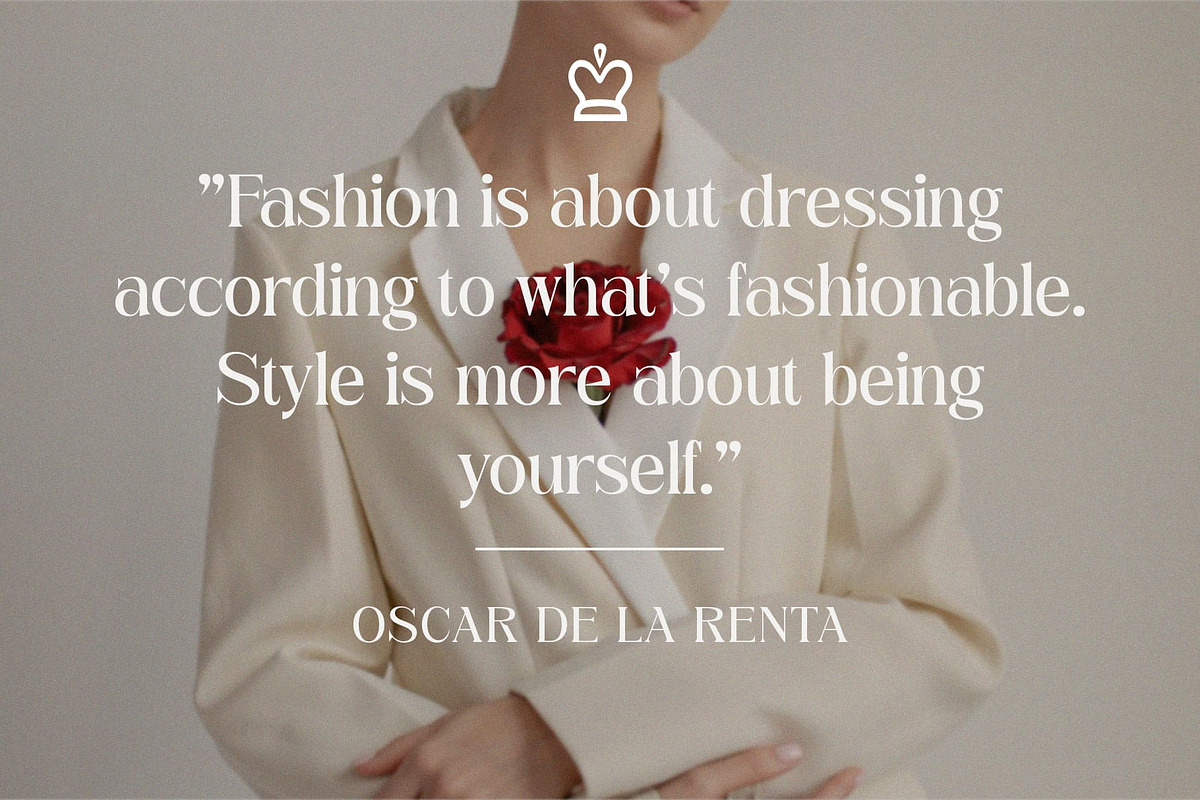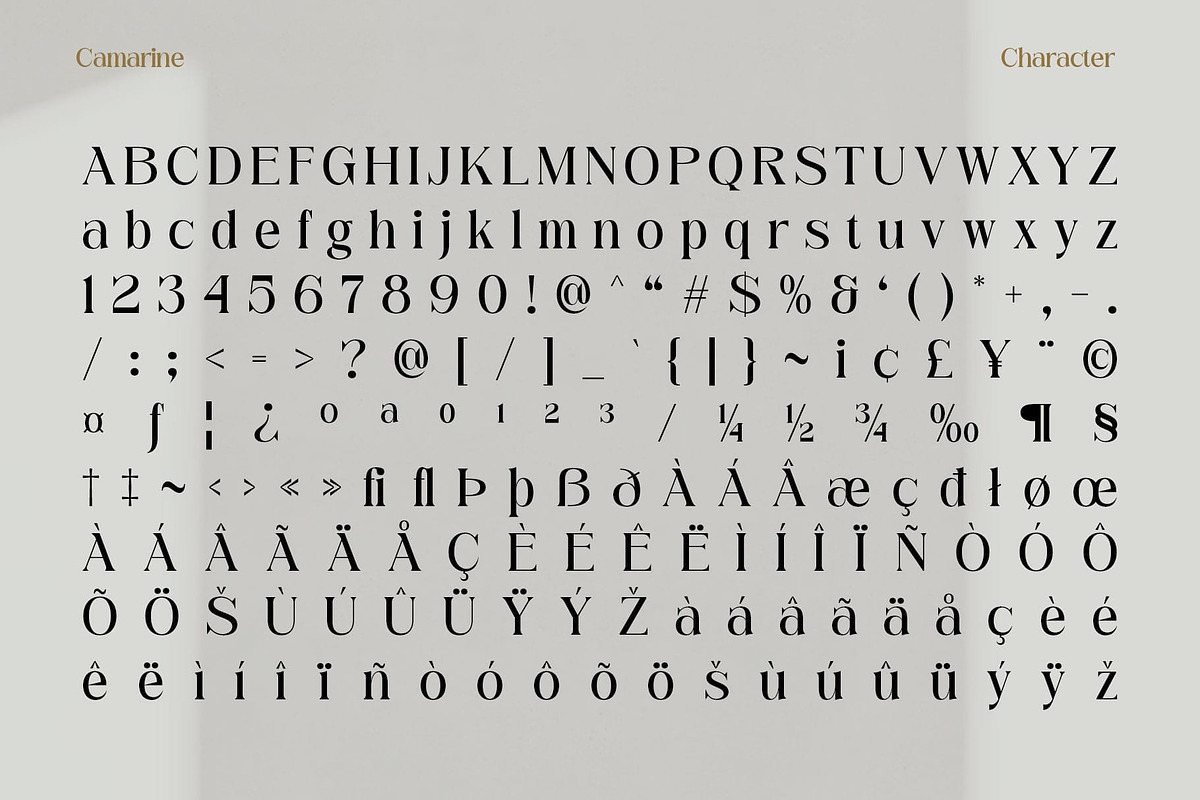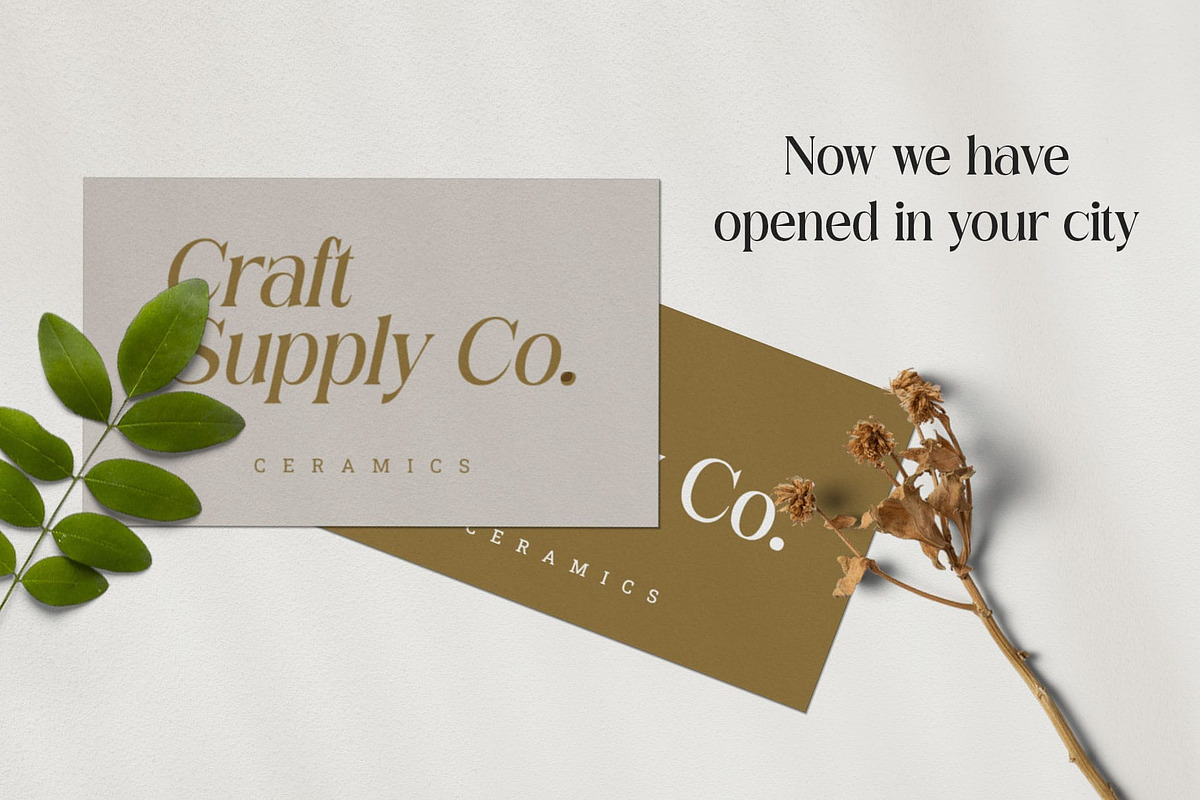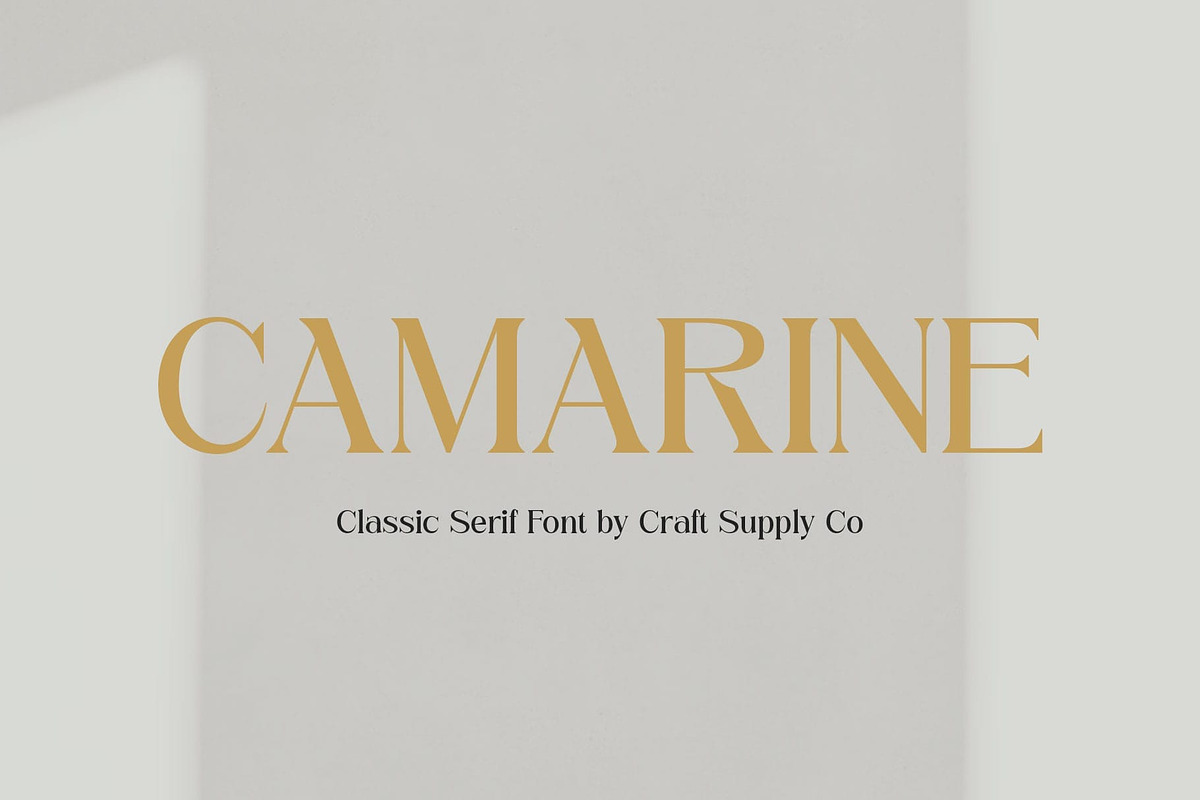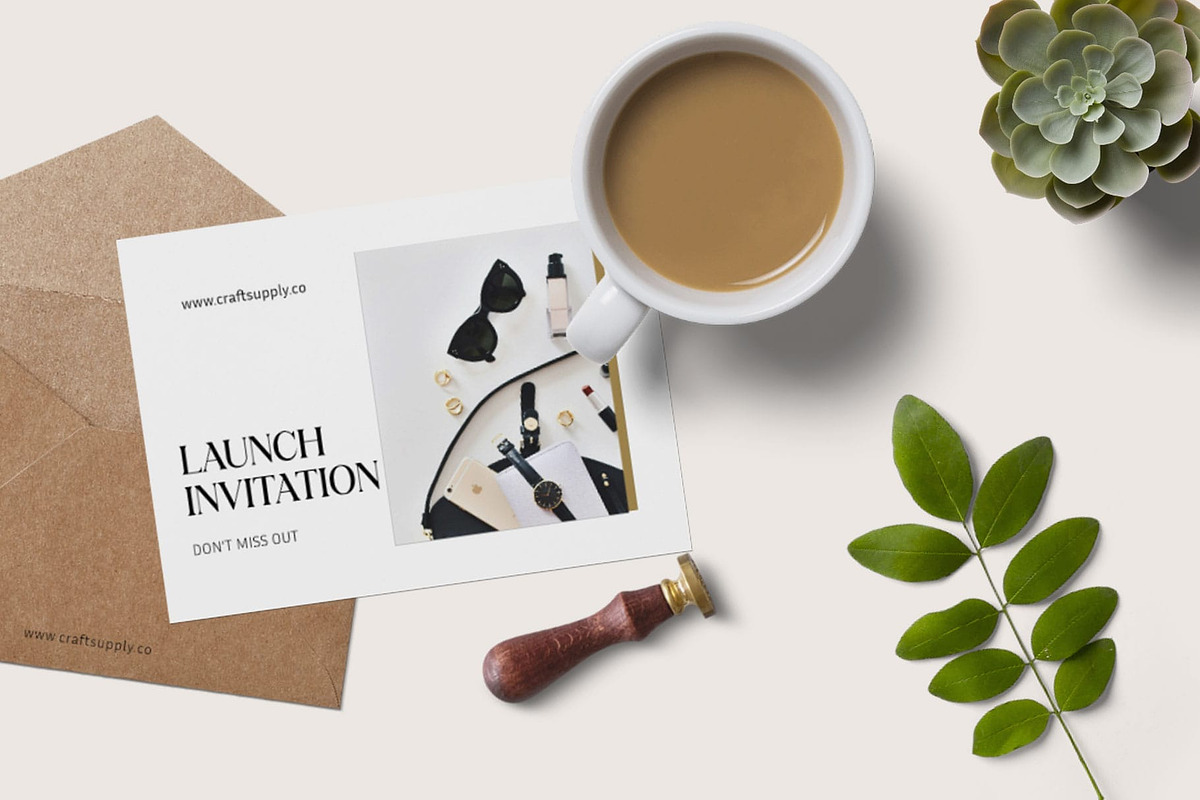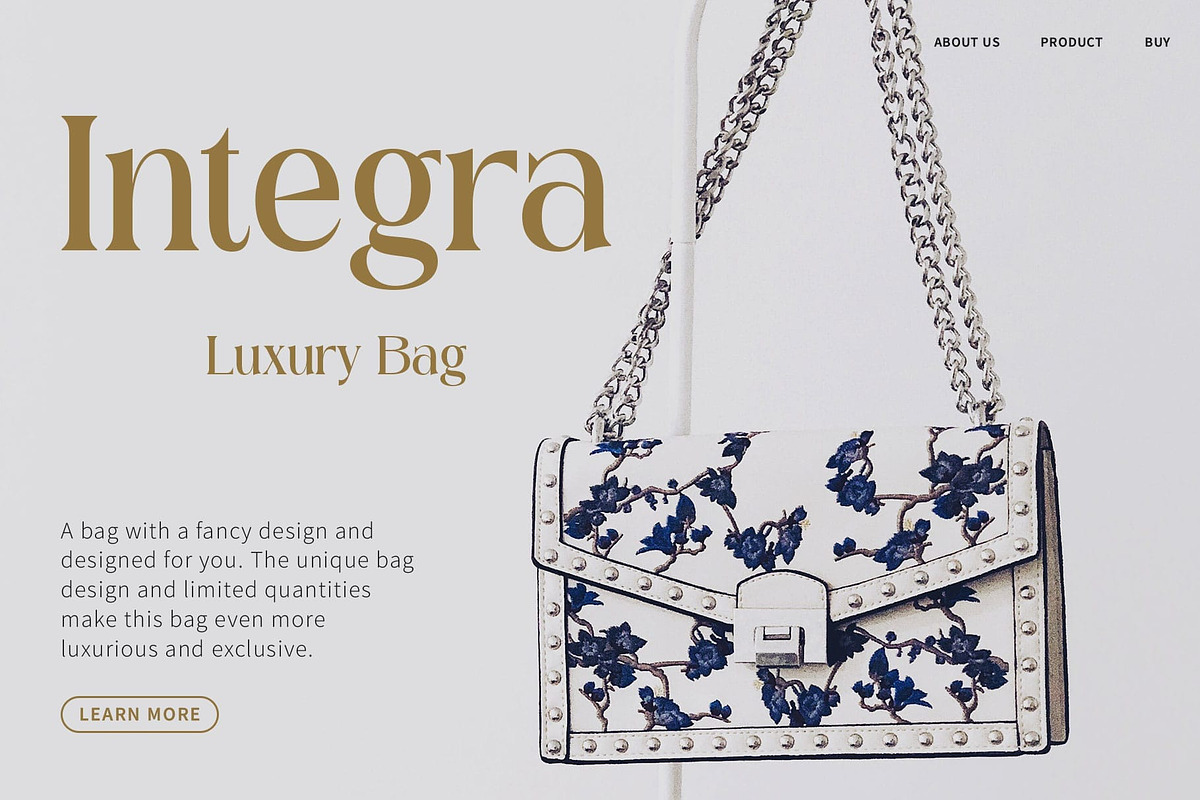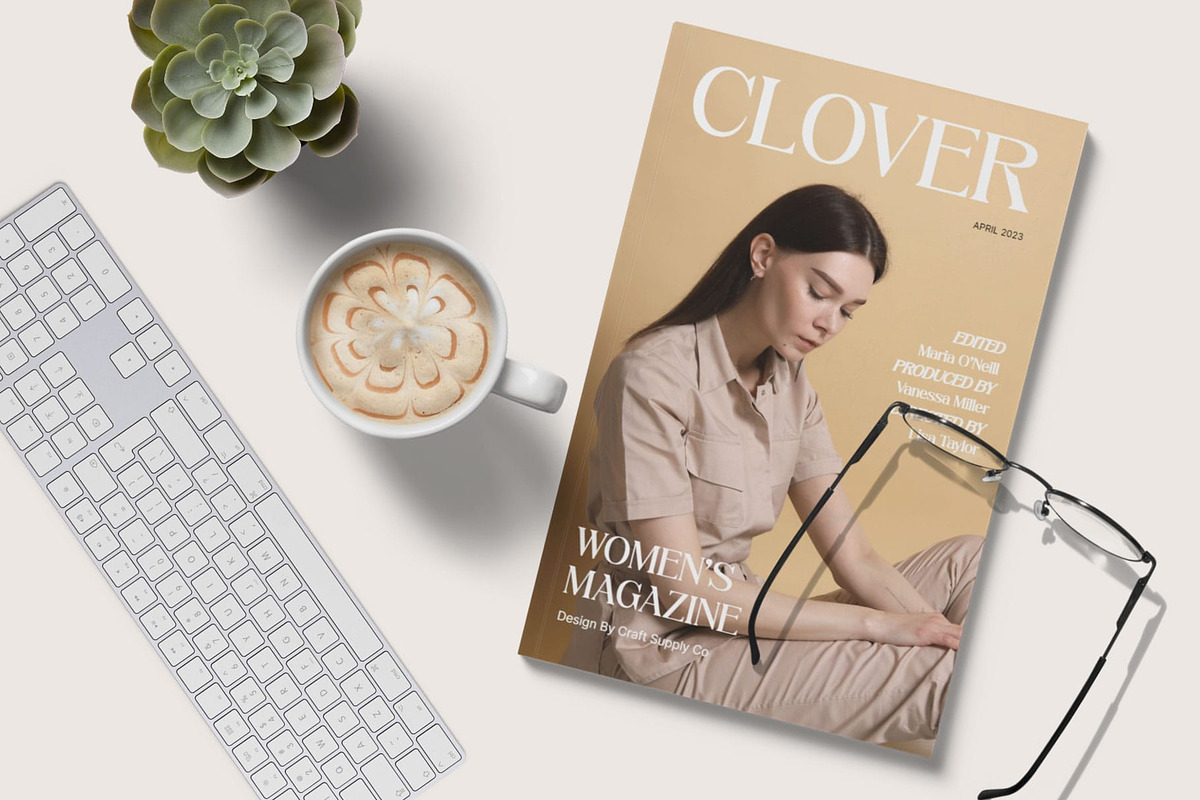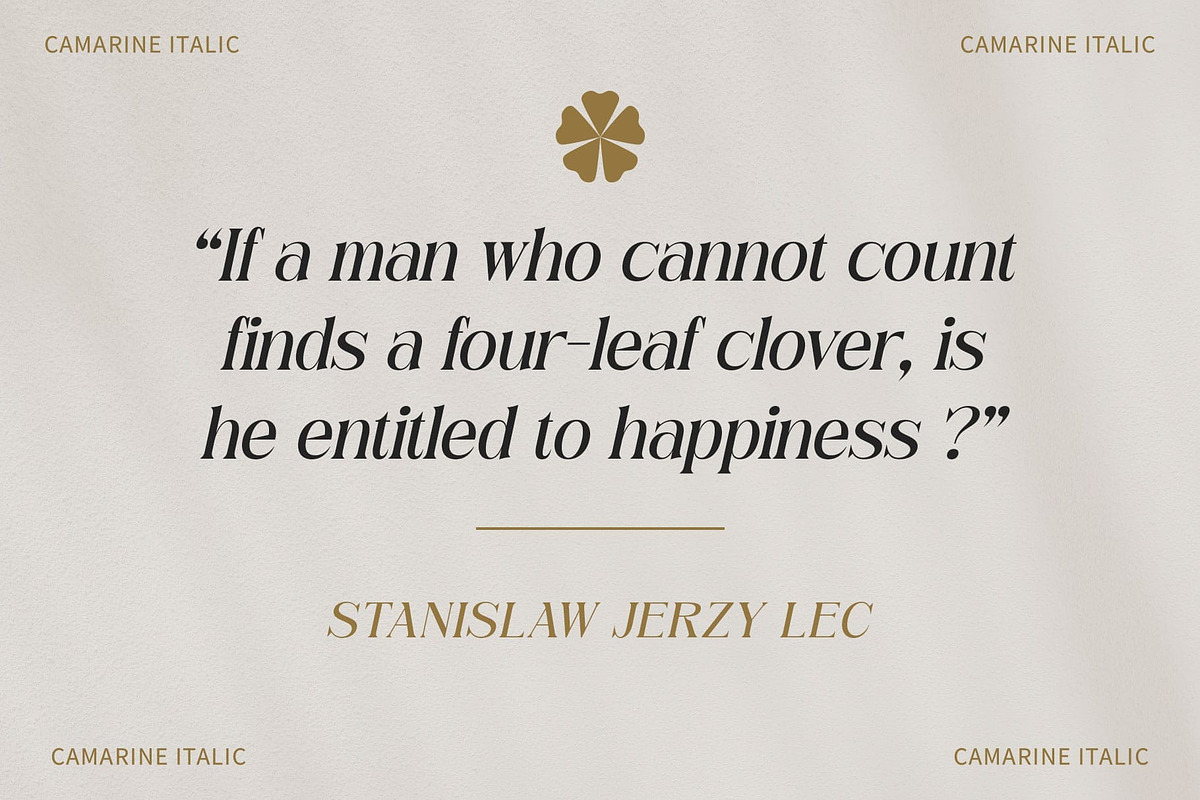
Camarine – Modern Serif
Camarine Font: Redefining Modern Elegance in Serif Fonts
Editorial Elegance Camarine, a font inspired by editorial finesse, brings the sophistication of magazines to your fingertips. Its modern aesthetics redefine elegance in serif typography.
Contemporary Allure With a touch of contemporary allure, Camarine offers a sleek and stylish presence, making it the perfect choice for projects where a modern vibe is paramount.
Versatile Sophistication This font seamlessly combines versatility and sophistication, ensuring a timeless quality that adapts effortlessly to various design contexts.
Impressively Modern Camarine isn’t just a font; it’s a statement of modernity. Each character reflects a commitment to staying relevant, making it an impressive choice for those seeking a contemporary edge.
Conclusion In the realm of modern serif fonts, Camarine stands as a beacon of sophistication, embracing the essence of editorial design while exuding contemporary charm. Elevate your projects with the refined allure of Camarine.